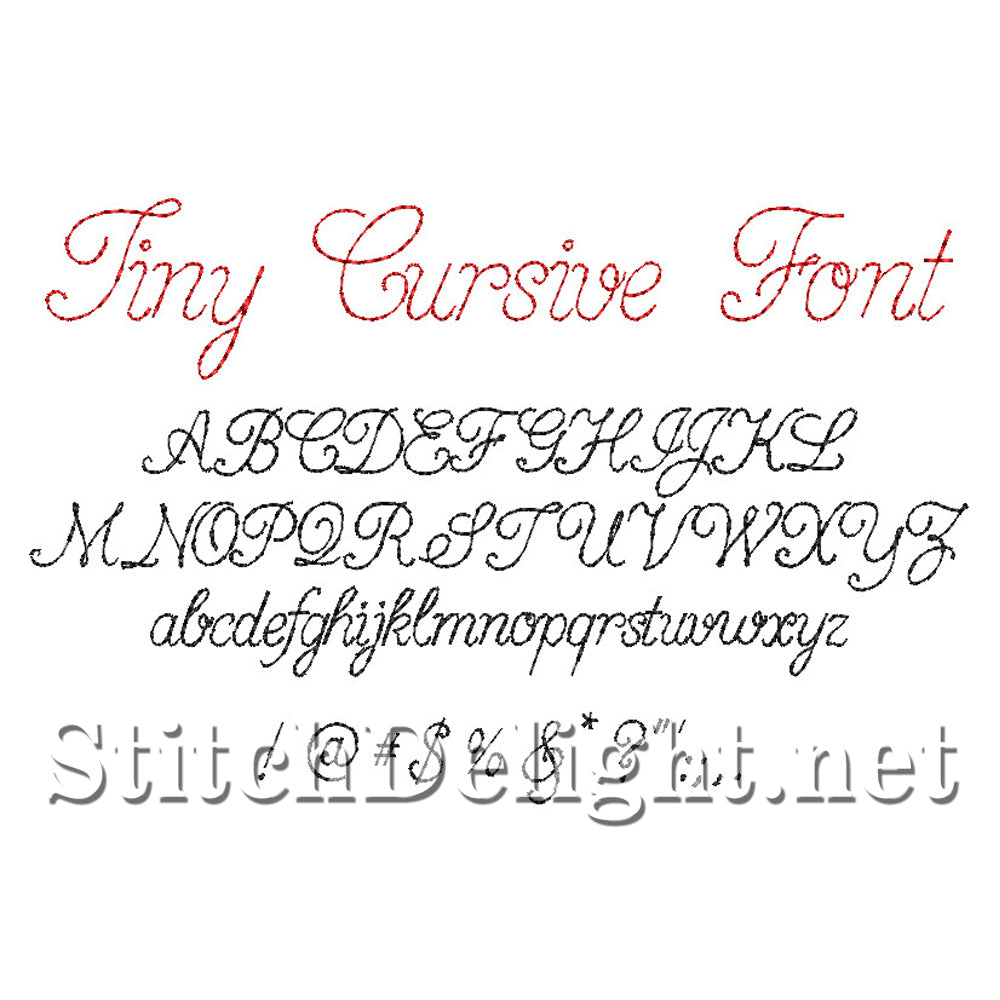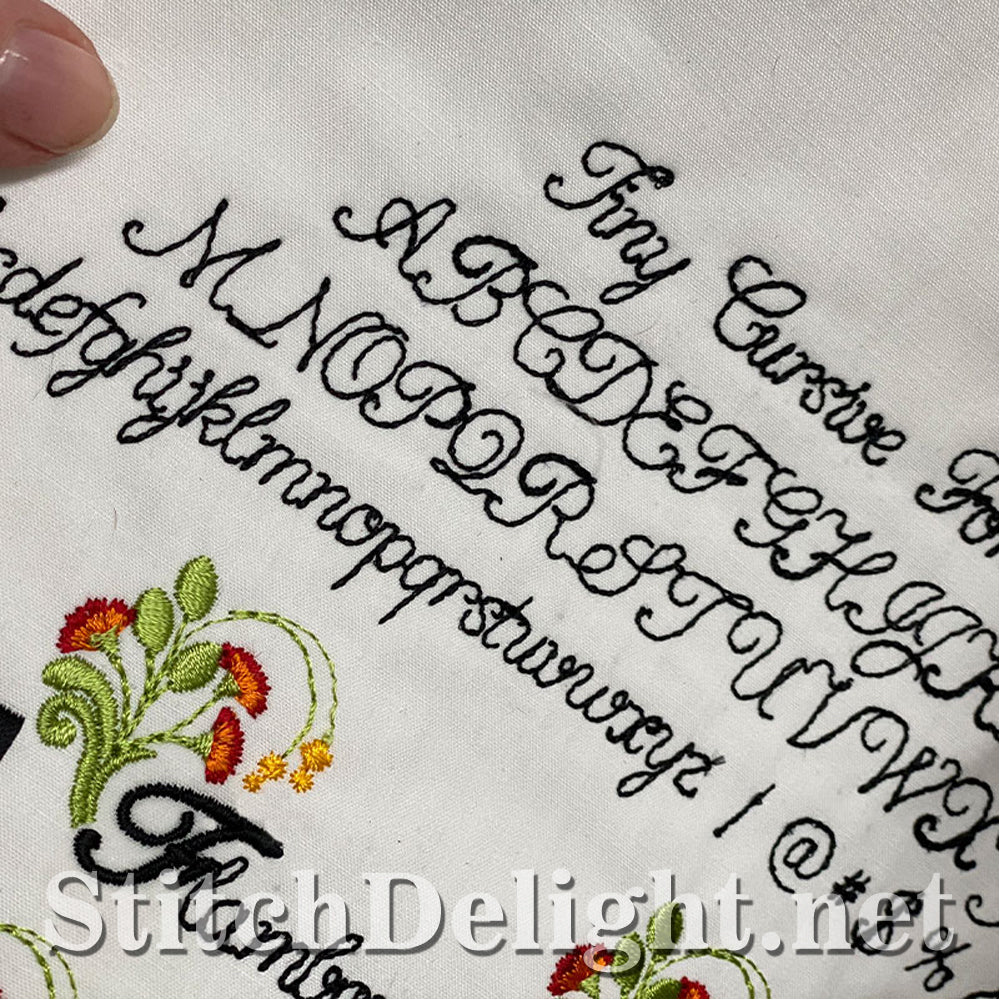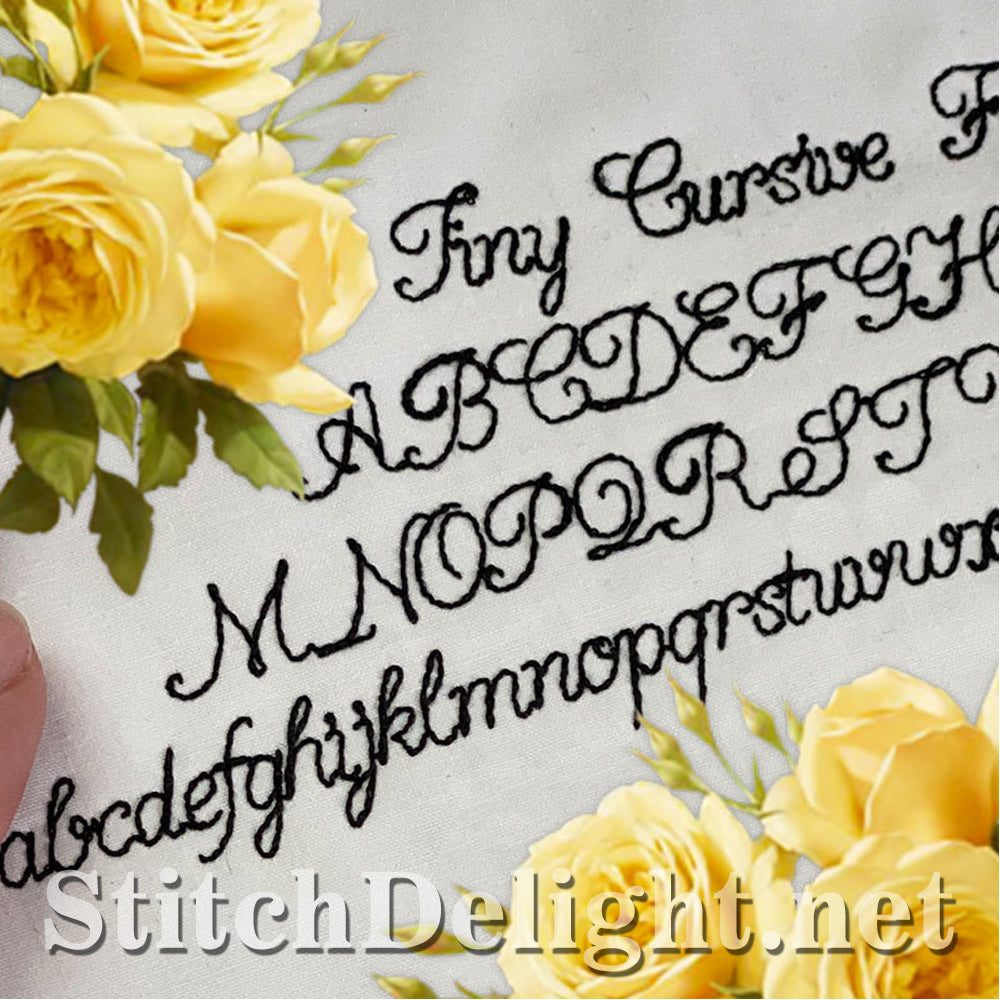
A tiny font of 0.3inch in height perfect for stitching recipes or longer text, this is the coordinating font for SDS1749. BX is included in this font.